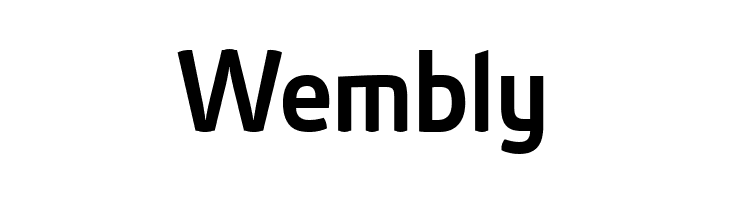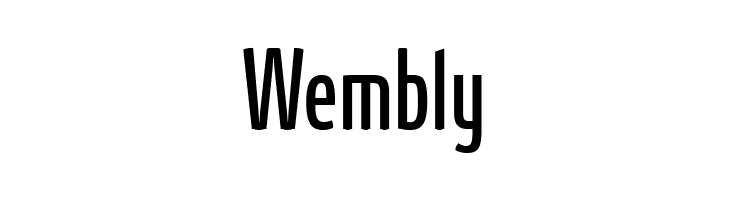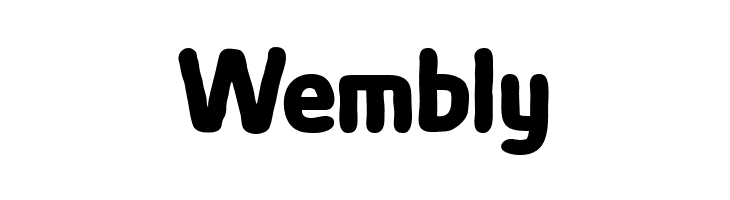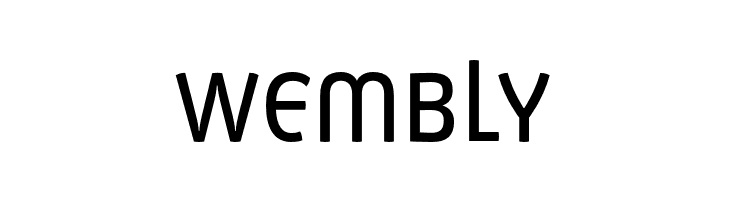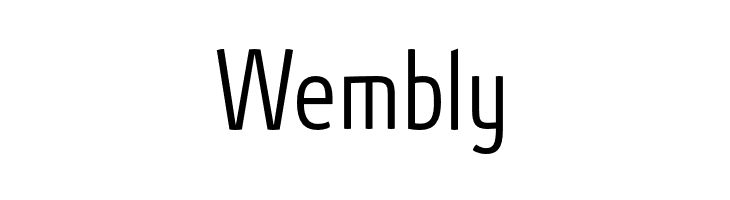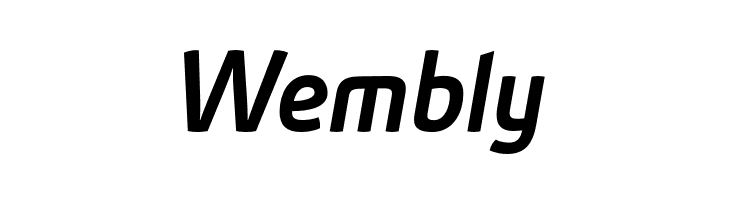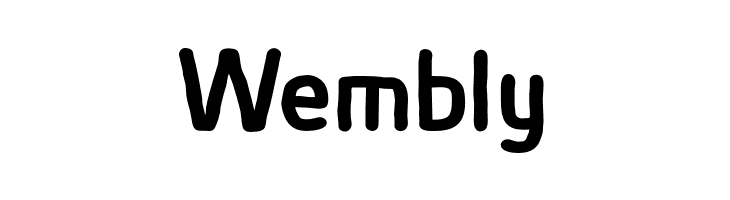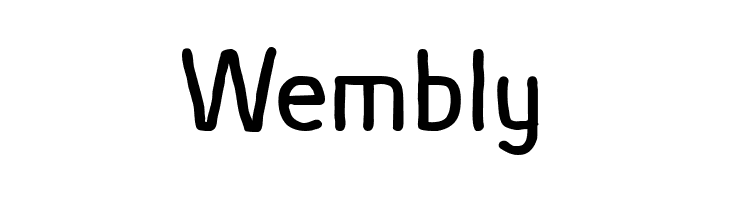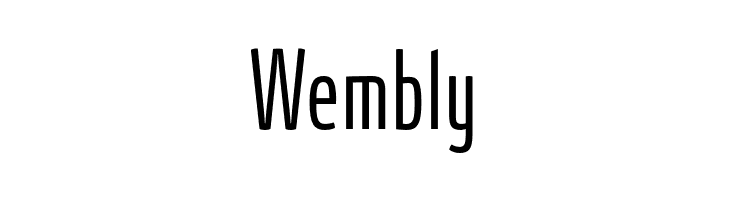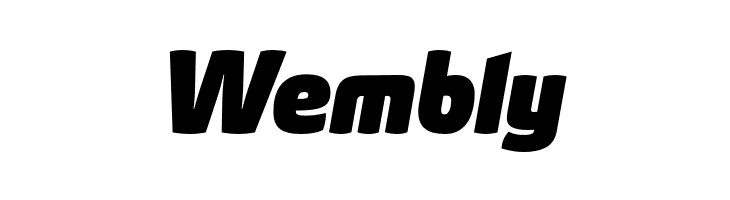
A modern, geometric sans-serif font with uniform stroke widths and balanced proportions.
A highly condensed sans-serif font with uniform strokes and minimal contrast.
A bold, playful font with rounded edges and a hand-drawn aesthetic.
A modern unicase font with rounded, geometric shapes and consistent stroke width.
A modern, condensed sans-serif font with a clean and minimalistic design.
A modern, geometric unicase font with clean, rounded characters.
A modern, italic sans-serif font with smooth curves and consistent stroke width.
A playful, hand-drawn font with rounded edges and consistent stroke width.
A playful, hand-drawn font with a sketch-like appearance and irregular strokes.
A sleek, ultra-condensed font with a modern, minimalist design.
Bold, italicized font with a strong, modern presence.
A bold, rounded font with a modern and playful style.
A playful, hand-drawn font with rounded, consistent strokes and a sketch-like quality.
A sleek, modern, and condensed font with thin, uniform strokes.
A bold, condensed font with a modern and impactful style.
A bold, modern unicase font with geometric shapes and rounded edges.
A modern, condensed sans-serif font with bold, uniform strokes and tight spacing.
A sleek, thin italic font with a modern and dynamic style.
A modern, medium-weight sans-serif font with a clean and professional appearance.
A playful, hand-drawn font with a sketch-like, casual style.
A bold, rounded font with a modern and impactful style.
A sleek, ultra-condensed typeface with thin, elongated letterforms.
A hand-drawn, sketch-style font with an artistic and informal appearance.
A modern, ultra-condensed sans-serif font with tight spacing and uniform strokes.
A bold, ultra-condensed font with high contrast and a modern, geometric style.
Ultra-condensed, bold font with a modern and impactful style.
A modern, condensed font with smooth, rounded strokes and a professional appearance.
A bold, rounded font with thick, uniform letterforms ideal for impactful headlines.
A bold, ultra-condensed font with tight spacing and strong visual impact.